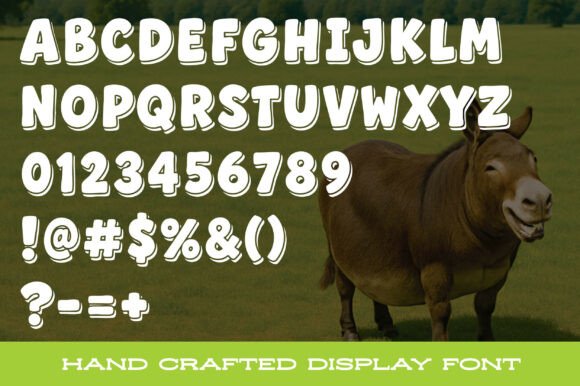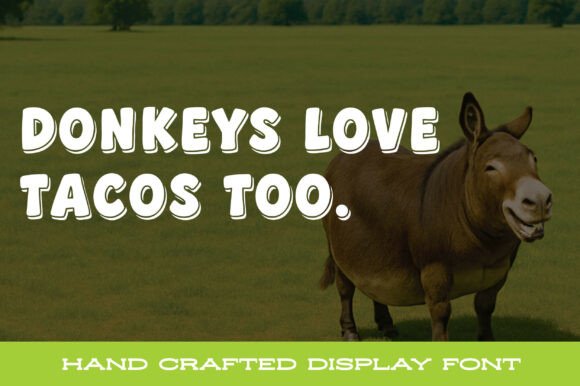
The Joy of Fat Donkey Font: A Designer’s New Best Friend
I still remember the design project that led me to discover the Fat Donkey Font 🌟. I was working on a children’s book cover, and my client wanted a playful, eye-catching title that would appeal to kids and parents alike. I scoured the internet for the perfect font, but nothing seemed quite right – until I stumbled upon Fat Donkey. Its bold, rounded shapes and friendly vibe instantly won me over. I knew I’d found the perfect fit for my project, and it’s been a go-to font in my design arsenal ever since.
An Honest Review of Fat Donkey Font
- 💥 Bold and playful: Fat Donkey’s thick, rounded shapes make it perfect for large titles and fun product branding.
- 📚 High readability: The font’s slightly irregular outlines create a friendly, cartoon-like rhythm that’s easy on the eyes.
- 🎨 Handcrafted feel: Each glyph features a soft, inflated structure that lends the typeface a unique, organic feel.
- 👍 Balances humor and clarity: The font’s design balances playfulness with clarity, making it suitable for a wide range of projects.
While Fat Donkey Font is an excellent choice for many projects, it’s not without its limitations. For example:
- 🤔 Limited use in body text: Due to its bold and playful nature, Fat Donkey Font may not be the best choice for body text or lengthy passages.
- ⚠️ May not be suitable for formal projects: The font’s informal and playful vibe may not be suitable for formal projects or professional documents.
The Story Behind Fat Donkey Font
Fat Donkey Font was designed with the intention of creating a playful, yet highly readable font that would bring a touch of humor and whimsy to design projects. The font’s creator aimed to craft a typeface that would be both bold and friendly, making it perfect for children’s designs, posters, and food packaging. The result is a unique and charming font that’s sure to delight audiences of all ages.
Q: What type of projects is Fat Donkey Font best suited for?
A: Fat Donkey Font is perfect for children’s designs, posters, food packaging, game titles, and any project that requires a playful and eye-catching font.
Q: Is Fat Donkey Font available in different weights or styles?
A: Fat Donkey Font is available in a single weight, but its bold and playful design makes it versatile enough to use for a wide range of projects.
Q: Can I use Fat Donkey Font for body text or lengthy passages?
A: While Fat Donkey Font is highly readable, its bold and playful nature makes it better suited for titles, headings, and short passages rather than body text or lengthy passages.